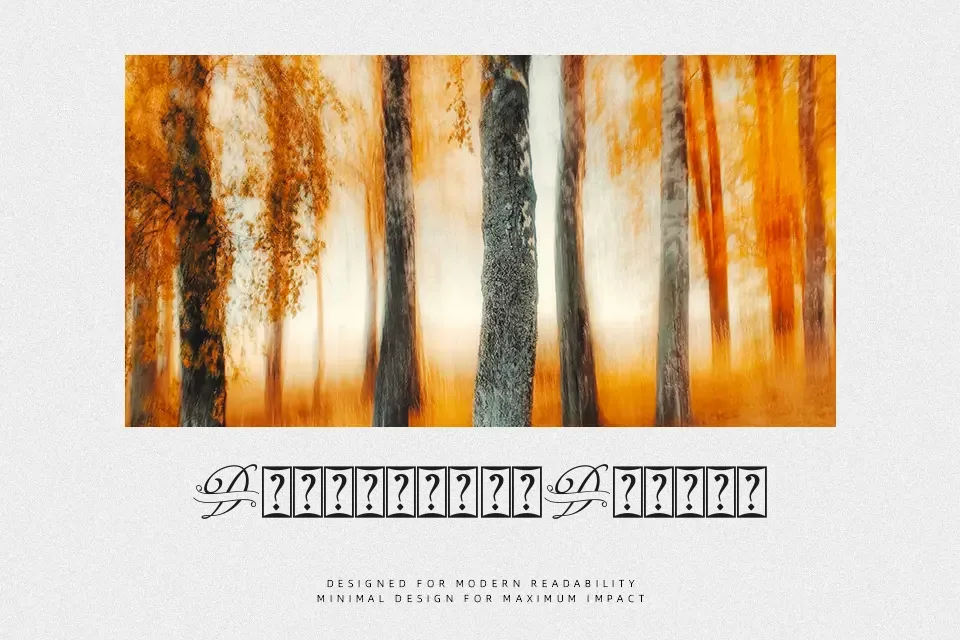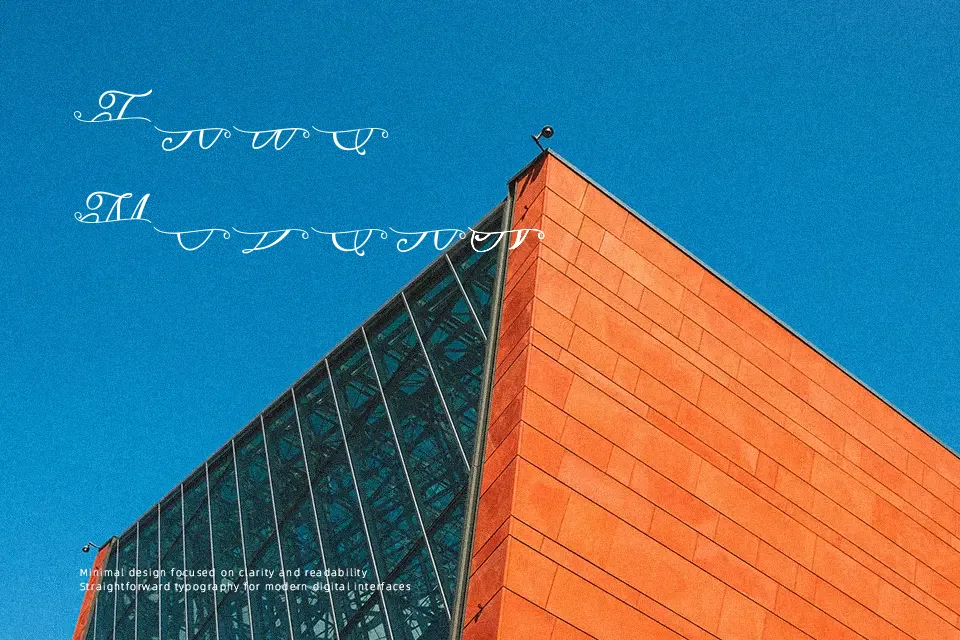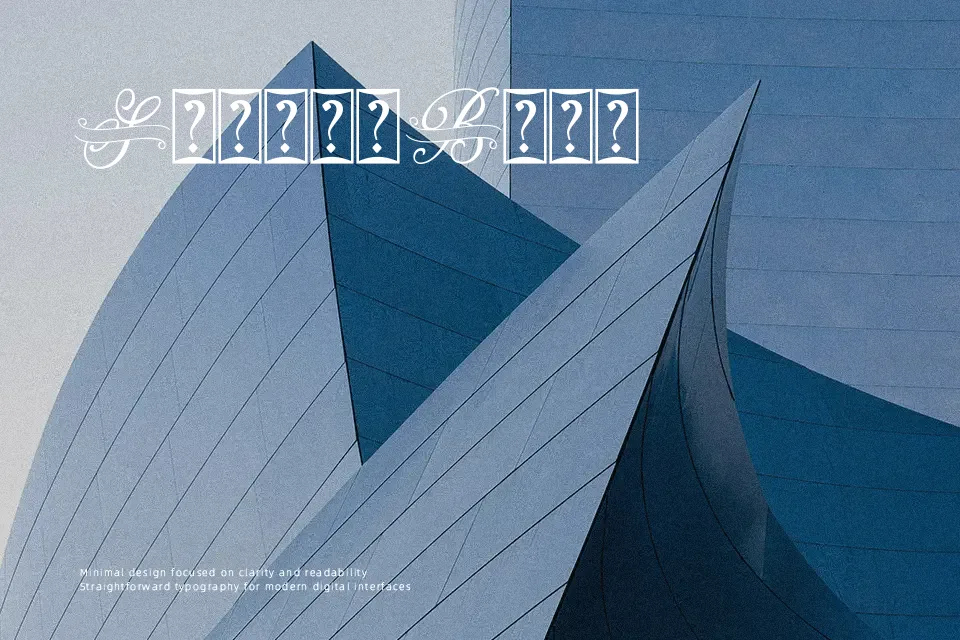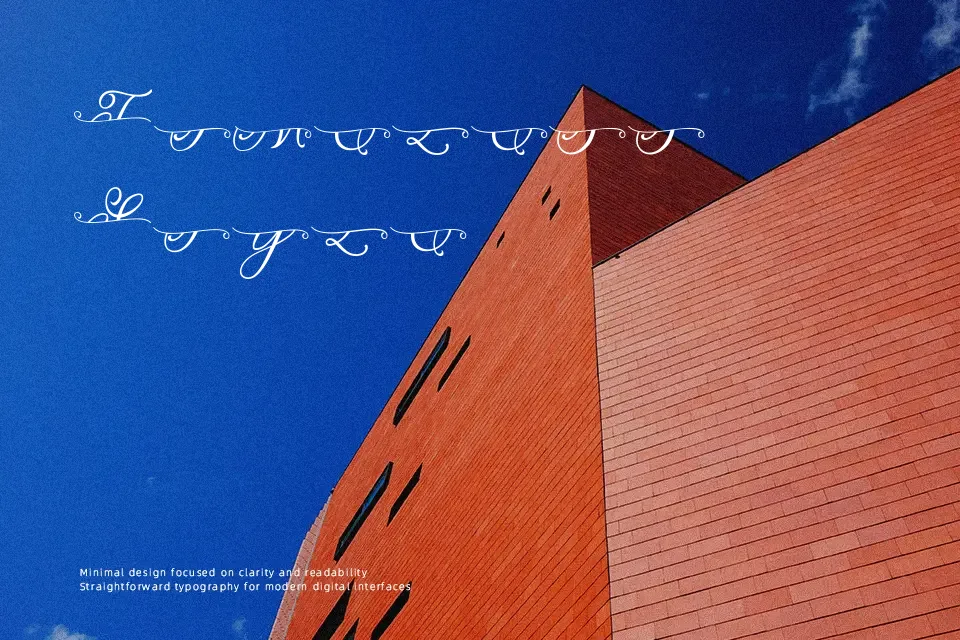
Romantic Loves Monogram Font
A premium branding project or wedding invitation immediately benefits from Romantic Loves Monogram Font. This decorative typeface focuses on crafting intricate, ornate initials rather than standard continuous text. The letterforms carry strong visual impact through sweeping strokes and balanced proportions that draw the eye. Its specialized structure ensures that individual characters stand out beautifully when used for logos, crests, or packaging typography. However, the highly detailed nature of the design means it loses clarity at smaller sizes. The dense decorative elements reduce comfort during extended reading, making these letterforms strictly suited for large-scale display purposes where their elegant details can be fully appreciated.
Best For: wedding invitations, boutique logos, premium packaging, custom monograms
Not Ideal For: long paragraph text, small interface labels, dense editorial layouts
Perfect for branding, invitation, and logo, with a classic and decorative style.